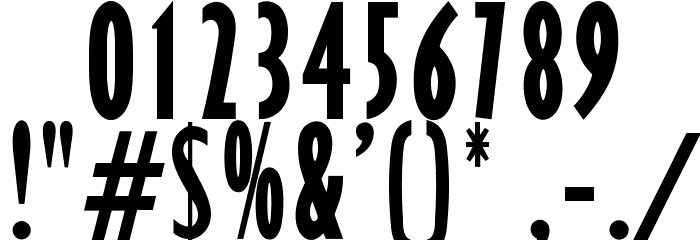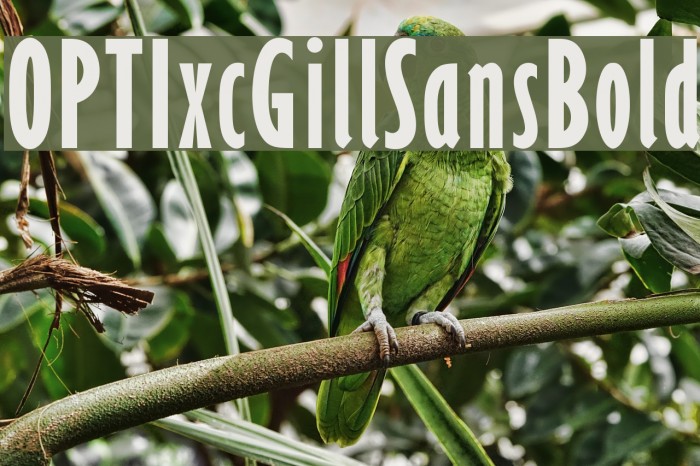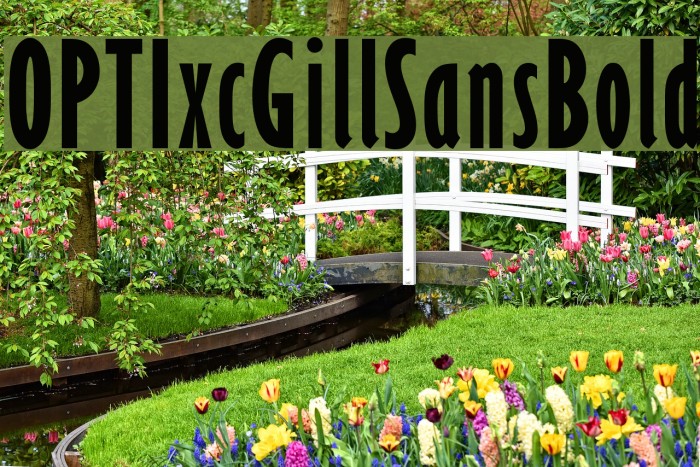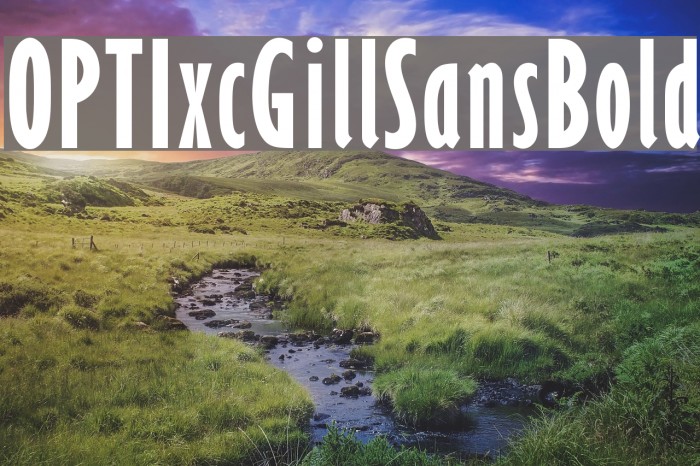
OPTIxcGillSansBold Font
This font features a bold and striking design with tall, narrow characters that convey a sense of strength and modernity. The uppercase letters are particularly elongated, giving a dramatic and impactful appearance. The lowercase letters maintain a consistent style, complementing the uppercase with a slightly softer touch. Numbers are clear and easily readable, while the special characters add a touch of flair with their unique shapes. The overall look is clean and professional, making it suitable for a variety of applications where a strong visual presence is desired.
A bold, narrow font with a modern and impactful style.
- Proposed Projects: Ideal for headlines, posters, branding materials, and any project requiring a bold statement.